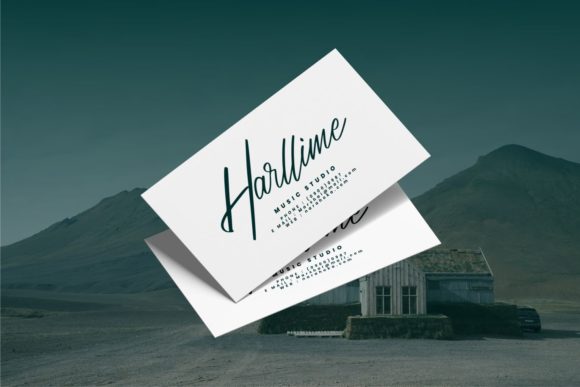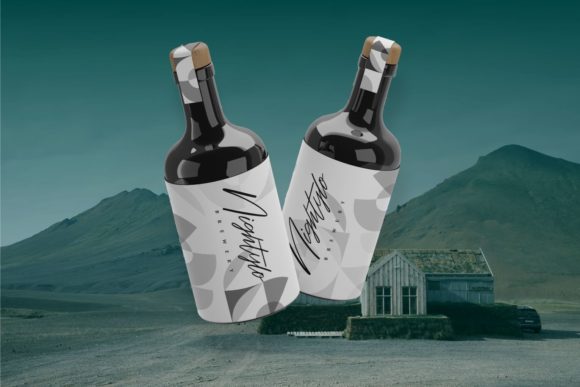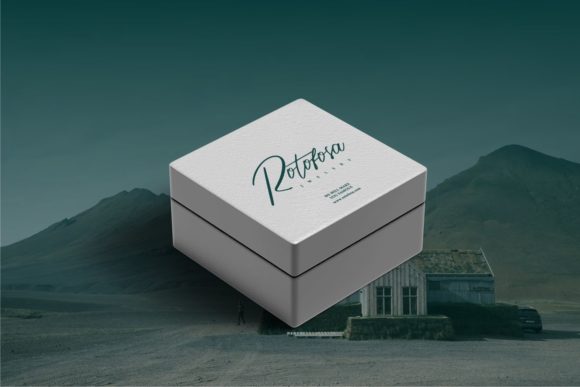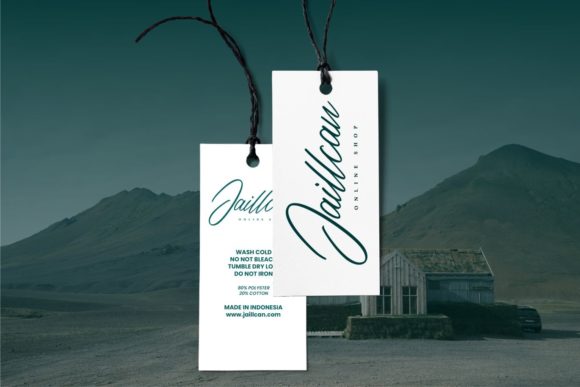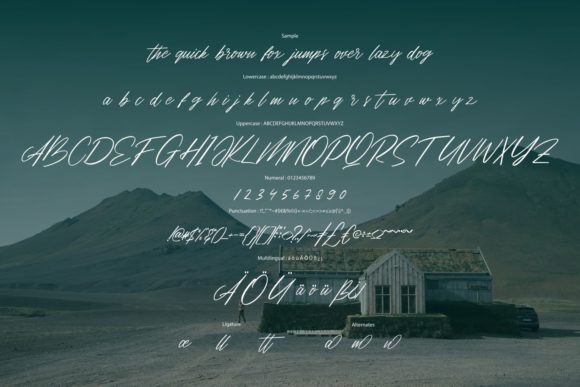
Basttena Font: A Magical Cursive Script to Elevate Your Designs
In the world of typography, fonts play a crucial role in bringing designs to life. Among the numerous font styles available, cursive scripts have always been a favorite among designers and crafters. One such font that has been making waves in the design community is Basttena Font. In this article, we’ll dive into the world of Basttena, exploring its unique features, and how it can add a touch of magic to your designs.
What is Basttena Font?
Basttena is a tall and cursive script font that boasts a modern yet whimsical style. Its elegant and fluid strokes are perfect for creating designs that exude sophistication and charm. With its unique blend of contemporary and traditional elements, Basttena is sure to immerse your designs into a magical world.
Key Features of Basttena Font
• Tall and Cursive: Basttena’s tall and cursive design makes it perfect for creating eye-catching headlines, titles, and quotes.
• Modern yet Whimsical: The font’s modern and whimsical style gives it a unique edge, making it suitable for a wide range of design projects, from branding to packaging.
• Elegant and Fluid Strokes: Basttena’s elegant and fluid strokes add a touch of sophistication to any design, making it perfect for creating luxurious and high-end branding.
Uses of Basttena Font
Basttena’s versatility makes it suitable for a wide range of design projects, including:
• Branding and Logo Design: Create stunning logos and brand identities with Basttena’s elegant and cursive design.
• Packaging Design: Add a touch of luxury and sophistication to your packaging designs with Basttena’s fluid strokes and modern style.
• Stationery and Invitations: Create beautiful stationery, invitations, and greeting cards with Basttena’s whimsical and elegant design.
• Digital Design: Use Basttena in digital designs, such as social media graphics, blog posts, and website headers, to add a touch of elegance and sophistication.
Why Choose Basttena Font?
With so many fonts available, why choose Basttena? Here are a few reasons why Basttena stands out:
• Unique Style: Basttena’s modern yet whimsical style sets it apart from other cursive script fonts.
• High-Quality Design: Basttena is designed with high-quality and precision, ensuring that it looks stunning in any design project.
• Easy to Read: Despite its elegant and cursive design, Basttena is easy to read, making it perfect for body text and headlines.
Tips for Using Basttena Font
Here are a few tips for using Basttena font in your designs:
• Pair with Sans-Serif Fonts: Pair Basttena with sans-serif fonts to create a beautiful contrast and add visual interest to your designs.
• Use for Headlines and Titles: Use Basttena for headlines and titles to add a touch of elegance and sophistication.
• Experiment with Colors: Experiment with different colors and textures to add depth and visual interest to your designs.